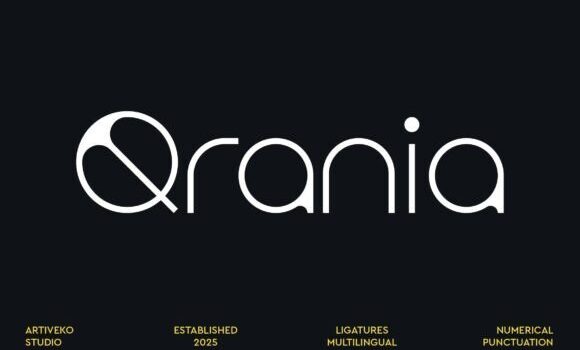
qrania
Qrania Font – Free Download Introduction to Qrania Font Qrania is a clean and refined sans serif font designed to bring elegance and simplicity to your typography. 📸 Preview Gallery 6 images 📌 Product Name Qrania Font 👤 Author Artiveko